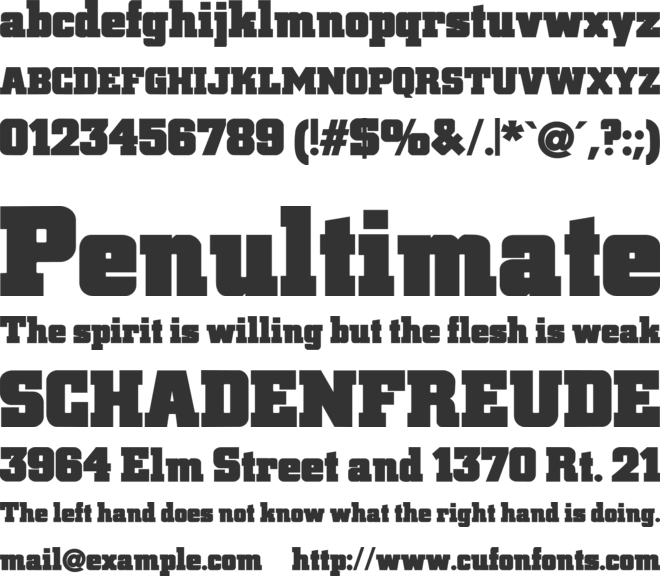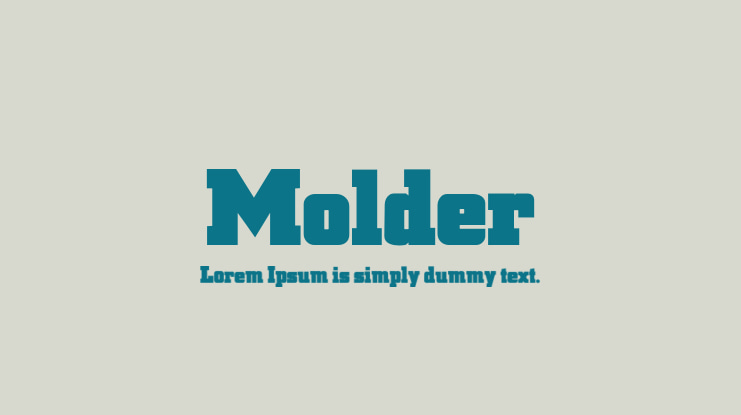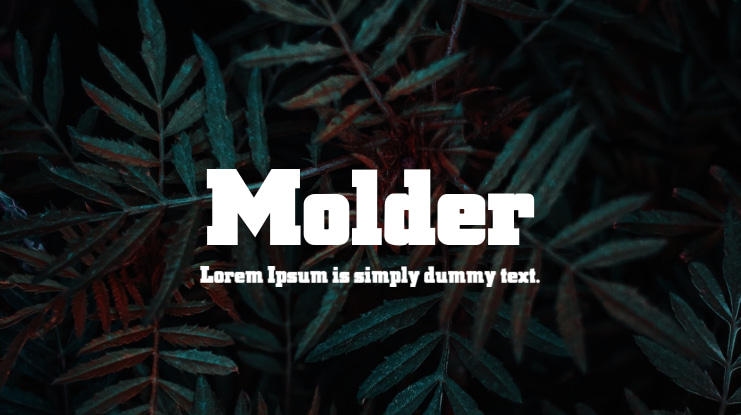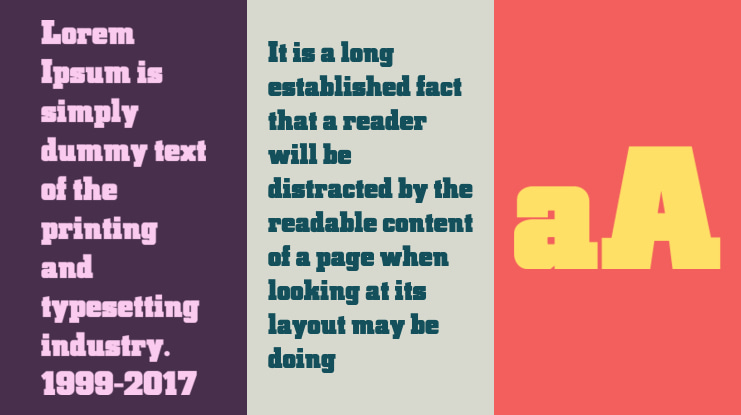
Molder Font
Muhammad Nasir
Molder Bold is a typographic force to be reckoned with, combining the strength of a sledgehammer with the elegance of a calligrapher's brush to craft words into stunning design works of art.